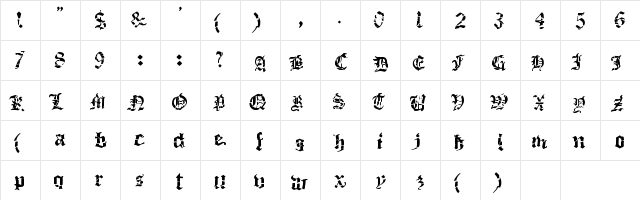
Death Fucking Metal Regular
Design Context for Death Fucking Metal Typeface
Death Fucking Metal leans into the macabre with letterforms designed to disturb and intrigue in equal measure.
Ideal for Halloween projects, horror film titles, haunted house signage, and dark editorial design.
Font Pairing: Pair with a clean neutral sans-serif for body copy to let Death Fucking Metal's character lead without overwhelming the composition.
Pro Tip: Death Fucking Metal works best as a headline or focal element. Pair it against plain, neutral body text to amplify the contrast.